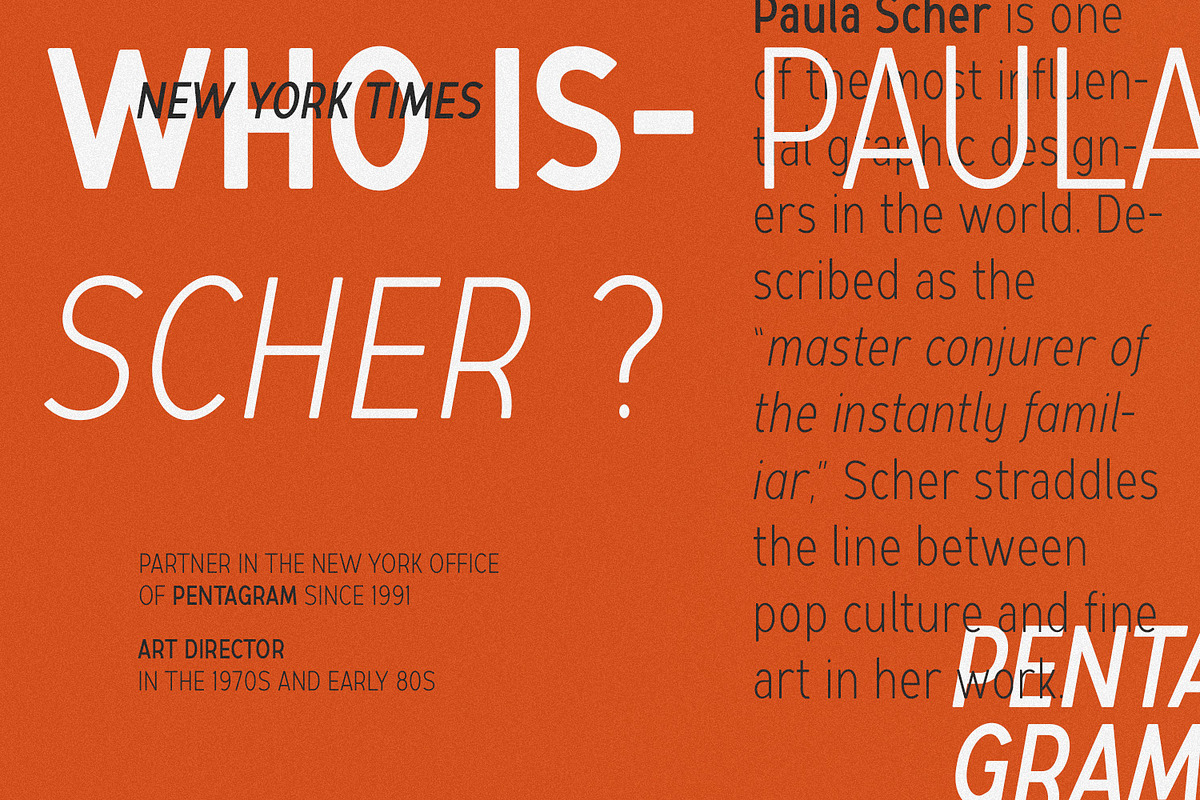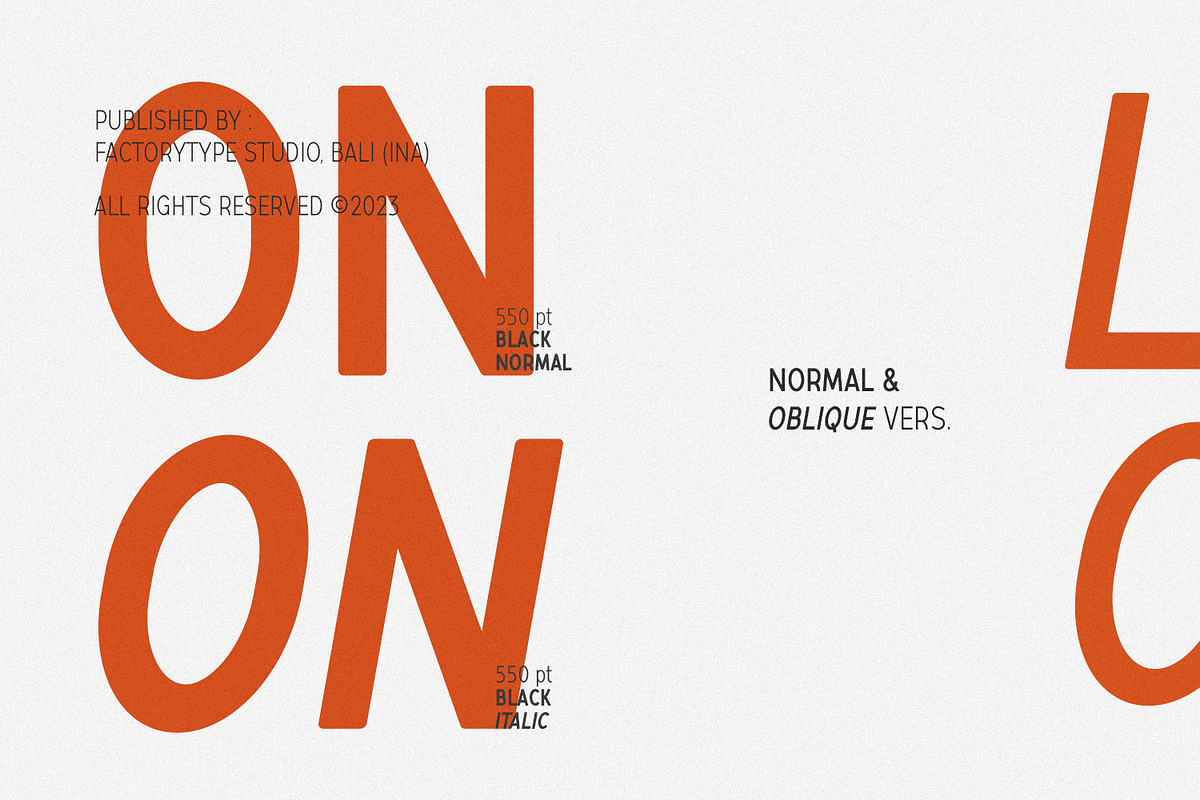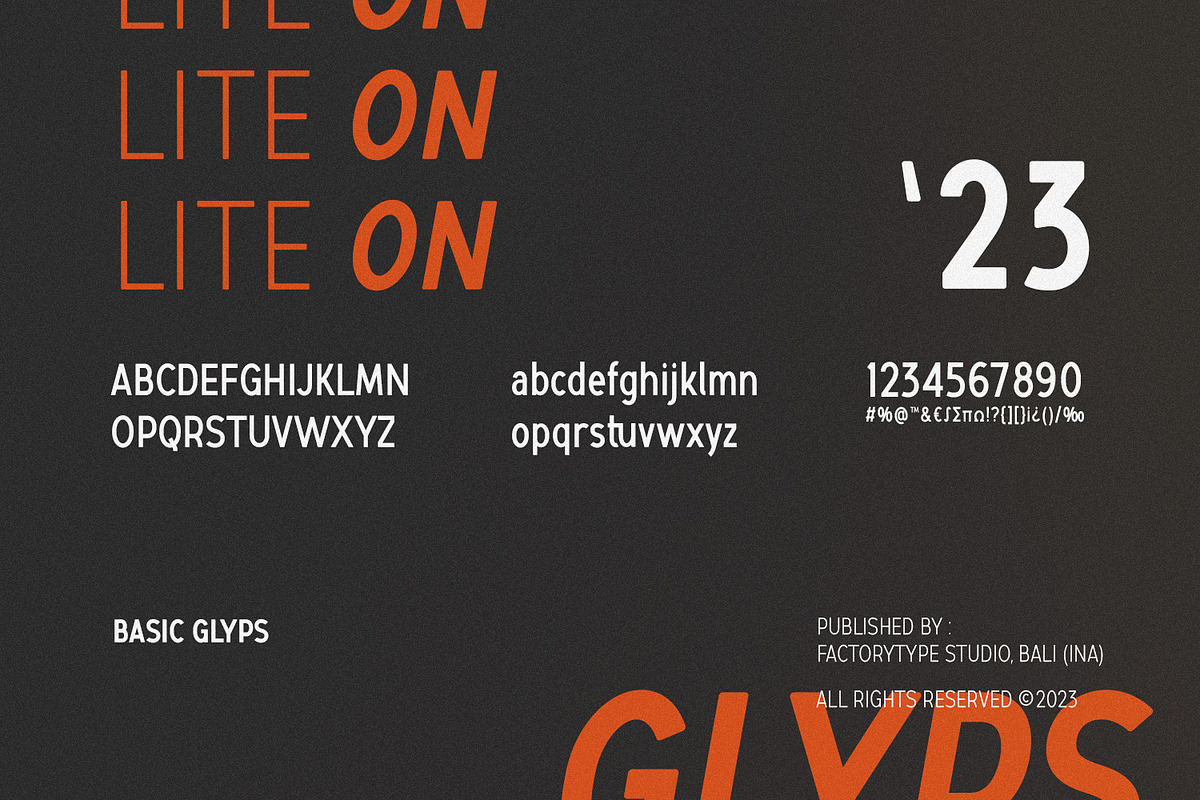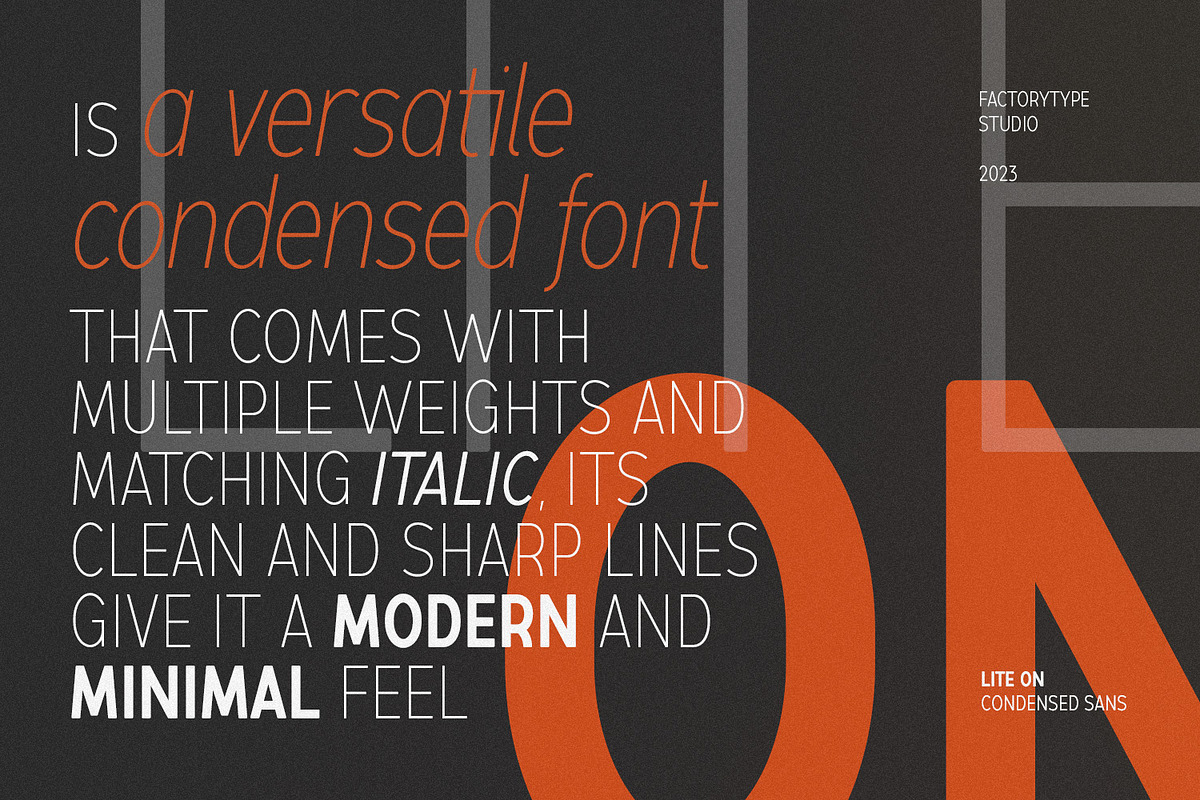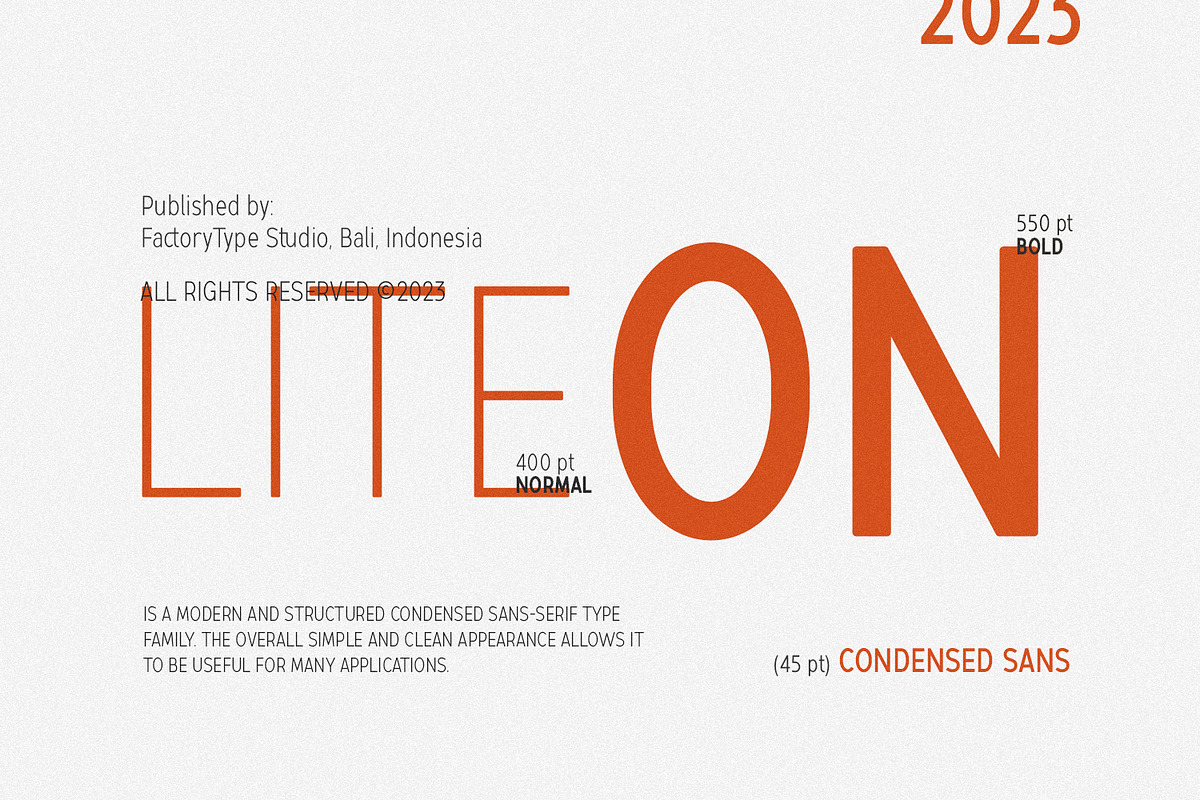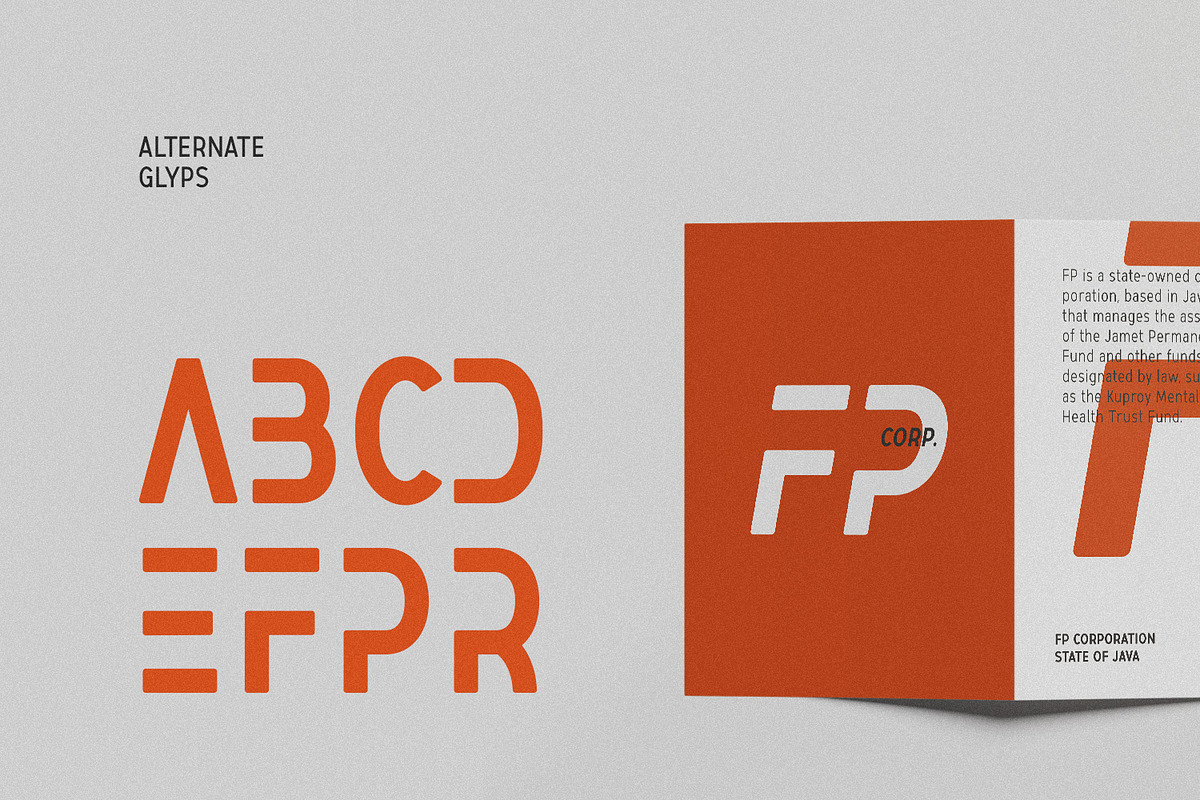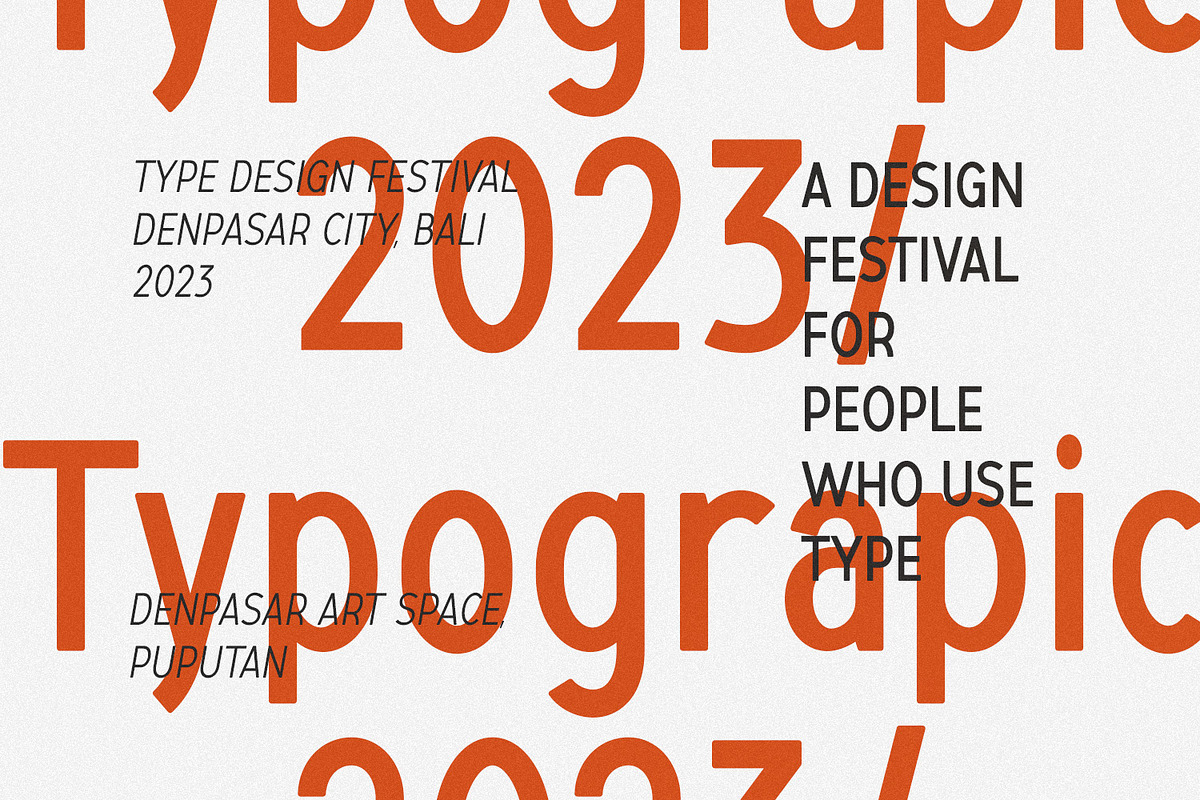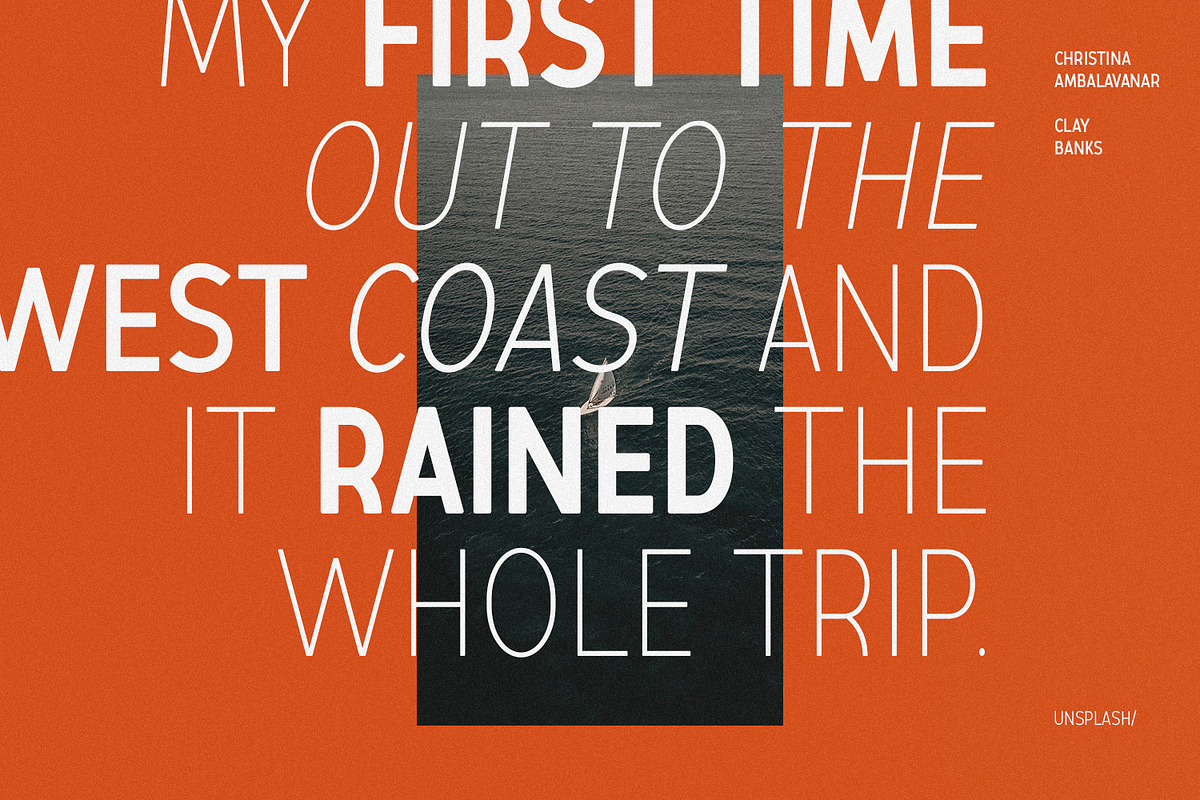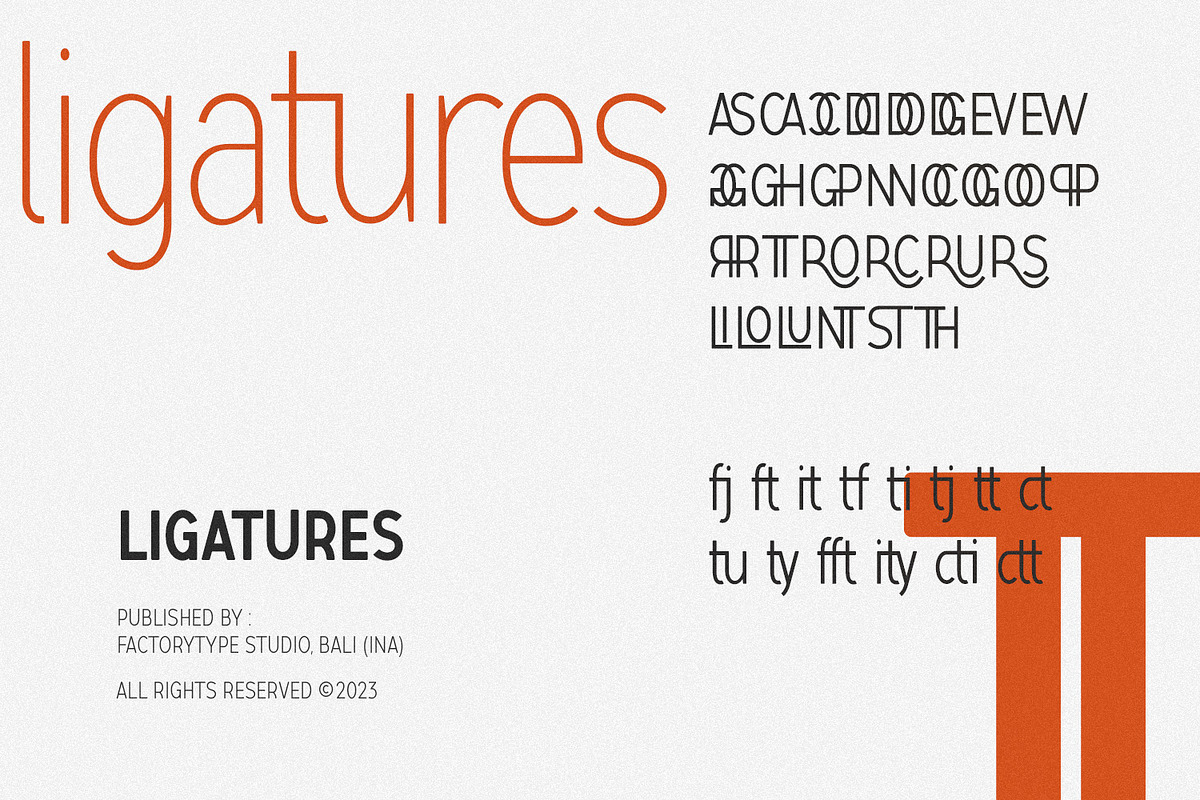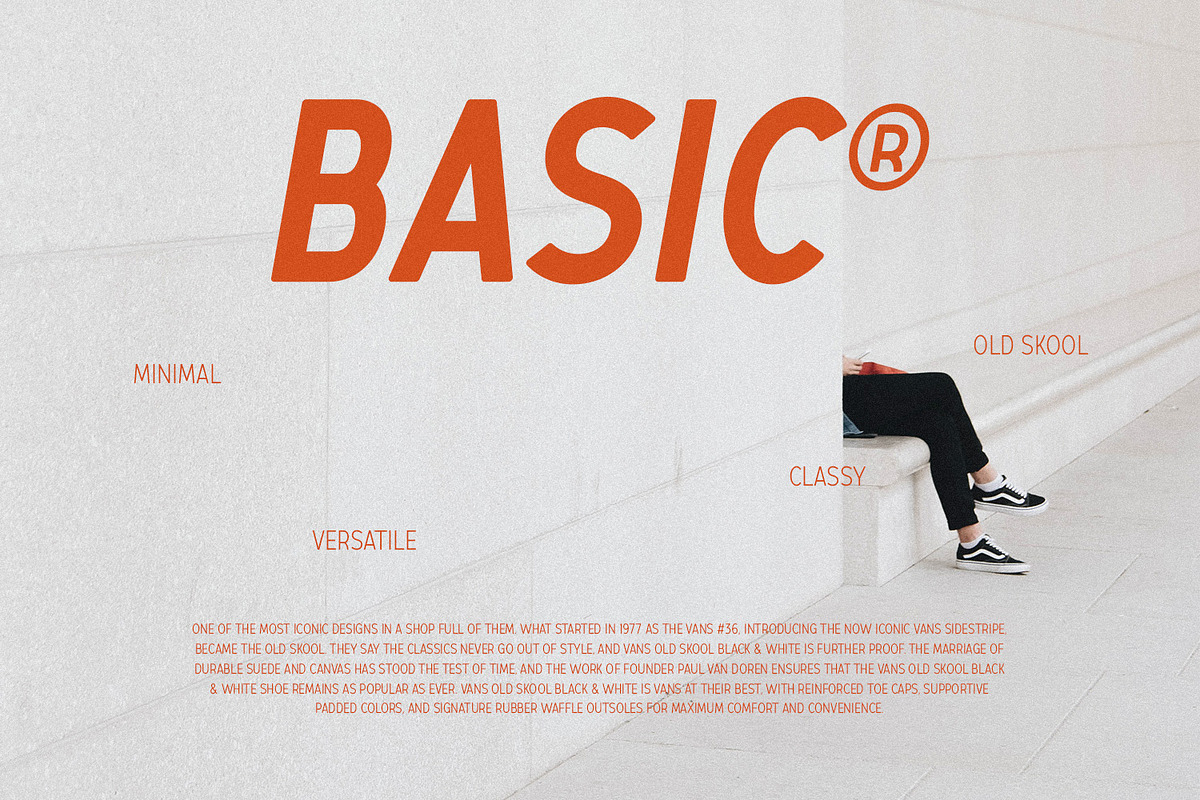
LiteOn Condensed
LiteOn Condensed is the perfect font family for designers who want to achieve a sleek and refined look. This sans serif font is both lightweight and elegant, with a smooth and contemporary feel that is sure to make any project stand out. With a variety of weights to choose from, LiteOn Condensed provides ample options to suit any design need. Choose LiteOn Condensed for your next project and take your design to the next level!
- 6 Weights
- Stylistic Ligatures and Alternate Glyphs
- Multilingual Support for ä ö ü Ä Ö Ü …